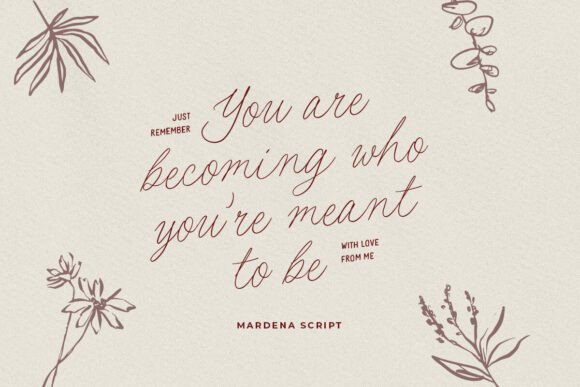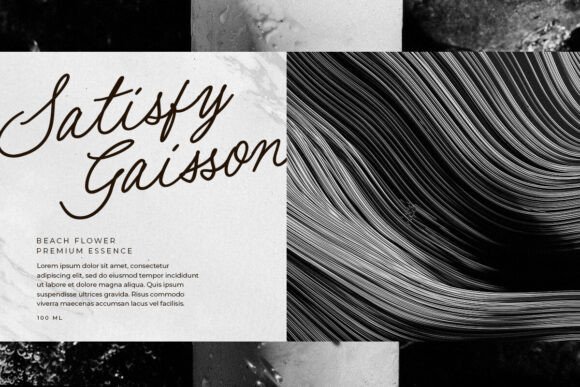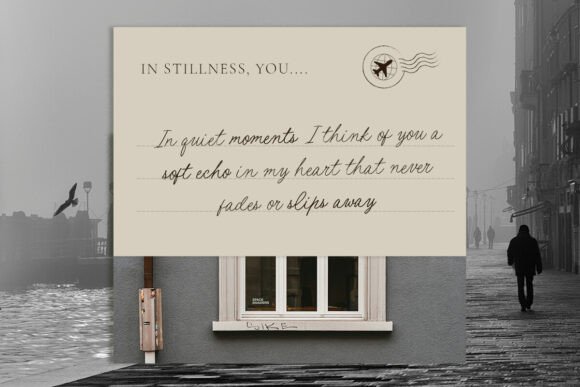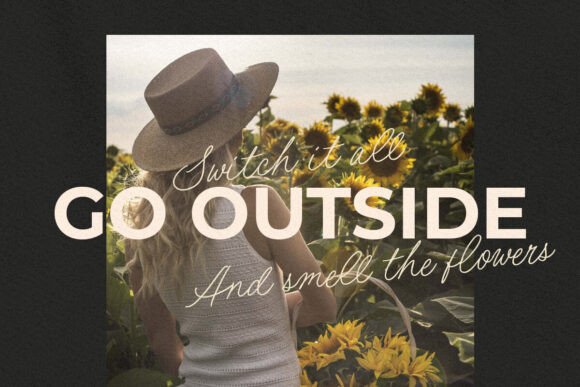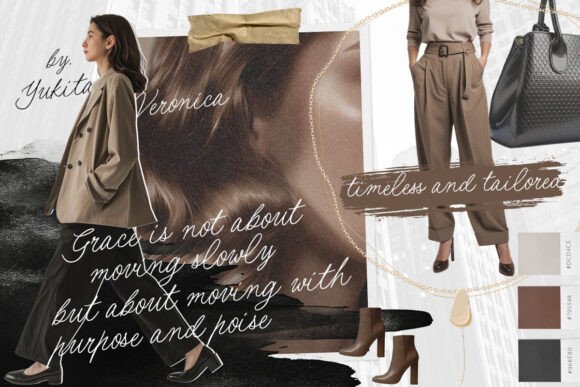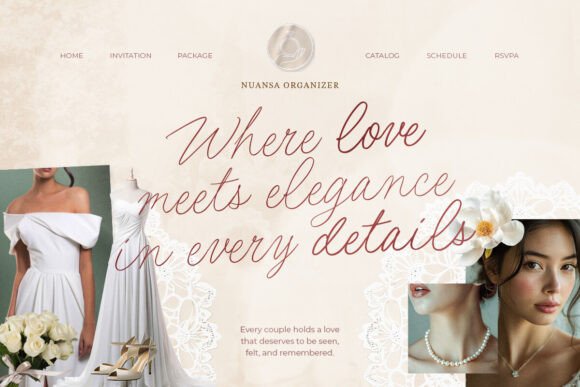
Introduction to Mardena Font
Have you ever stared at a blank page, trying to bring your creative vision to life, only to be stopped by the perfect font? That’s exactly what happened to many designers when they discovered the Mardena Font. This beautiful, high-quality script font has been a game-changer for designers looking to add a touch of elegance to their projects.
With its minimalist and clean look, the Mardena Font is the perfect design resource for any creative project. Whether you’re working on a logotype, a wedding invitation, or a branding project, this versatile font is sure to impress. And the best part? It’s available for free download, making it an accessible and valuable asset for designers of all levels.
Key Features of Mardena Font
- Unique, elegant font style with a transparent background, ideal for backgrounds and overlays.
- Supports various languages, making it a versatile design resource for global projects.
- Large character set, including uppercase and lowercase letters, numbers, and special characters.
Honest Review: Mardena Font
I recently stumbled upon the Mardena Font, and I must say it’s a high quality design resource that caught my attention. This font is perfect for designers working on creative projects that require a unique touch. One of the standout features of Mardena Font is its transparent background, which makes it easy to use and customize.
- ✨ High quality design that’s perfect for creative projects
- ✨ Transparent background for easy customization
- ⚠️ Limited character set, which may not be suitable for projects that require a wide range of characters
- ⚠️ Not as versatile as some other fonts, which may limit its use in certain design contexts
Overall, I’m impressed with the Mardena Font, and I think it’s a great addition to any designer’s toolkit. While it may have some limitations, its unique design and transparent background make it a valuable resource for designers working on creative projects.
How to Use Mardena Font
The Mardena Font is a high-quality design resource perfect for any creative project. Its transparent background and modern design make it a great choice for various applications.
Getting the Most Out of Mardena Font
For the best results, use the Mardena Font in conjunction with other high-quality design resources. Experiment with different font sizes and styles to find the perfect combination for your project.
The Mardena Font is perfect for a wide range of creative projects, including logos, brochures, and social media graphics. Its modern design makes it a great choice for any project that requires a professional and sleek look.
Alternatives to Mardena Font
Lato Font is a popular sans-serif font suitable for high-quality design projects. It’s ideal for creative projects that require a clean and modern look. When to use: For designing websites, mobile apps, and documents that need a professional touch.
Lato Font is similar to Mardena Font in terms of its modern and clean design, but it has a more subtle feel and is highly legible even at small font sizes.
Arial Font
Arial Font is a classic sans-serif font that is widely used as a default font in many design resources. It’s a great choice for designers who need a simple and easy-to-read font. When to use: For designing documents, presentations, and websites that require a clear and readable text.
Arial Font is similar to Mardena Font in terms of its simplicity, but it lacks the modern touch and elegance of Mardena Font.
Montserrat Font is a geometric sans-serif font that is perfect for designing creative projects that require a modern and urban feel. It’s ideal for designing websites, mobile apps, and documents that need a bold and edgy look. When to use: For designing projects that require a strong and modern aesthetic.
Montserrat Font is similar to Mardena Font in terms of its modern design, but it has a more geometric and bold feel that is perfect for urban-themed projects.
Is the Mardena Font suitable for designs with transparent backgrounds?
Yes, the Mardena Font is designed to work well with transparent backgrounds. Its high-quality design and optimized vector graphics ensure crisp and clear text, even when placed over complex backgrounds or images with transparent layers.